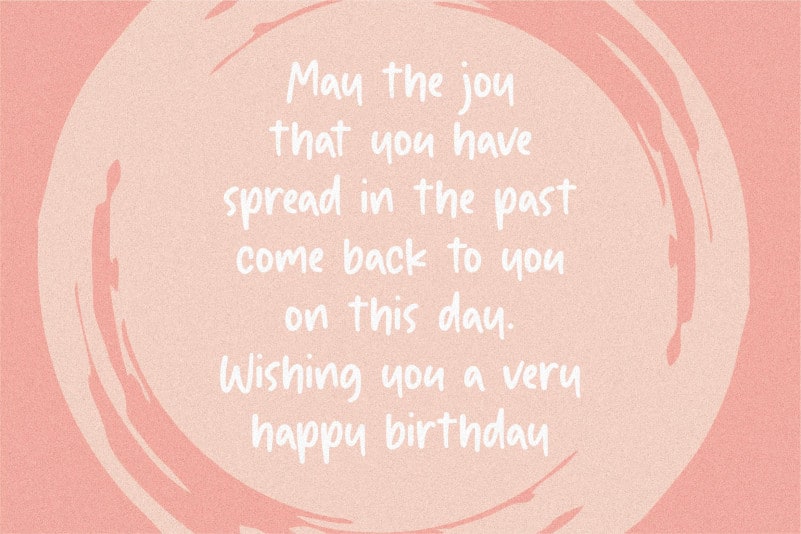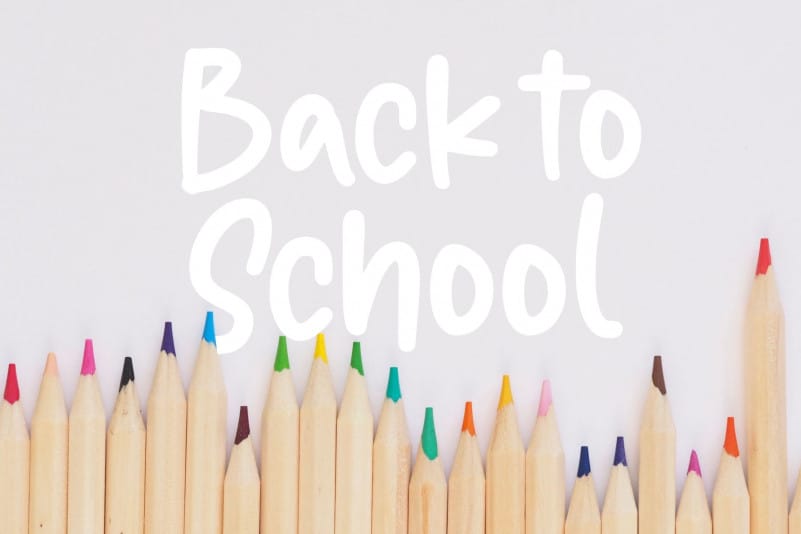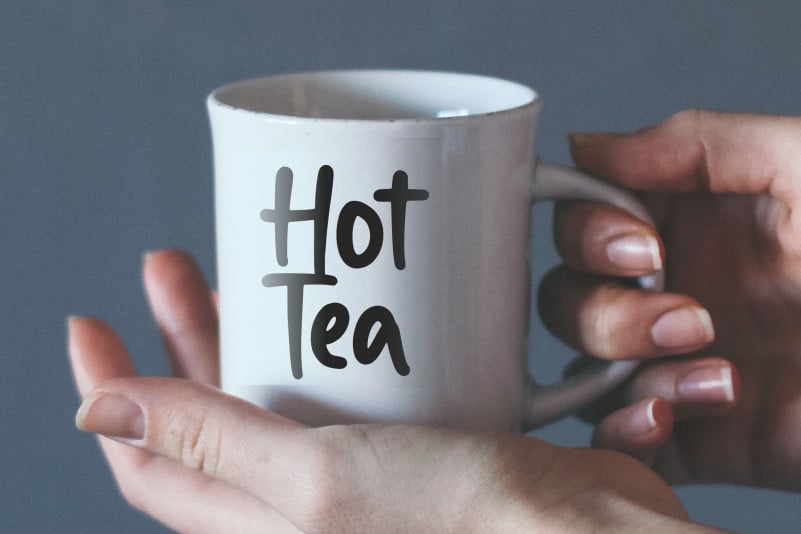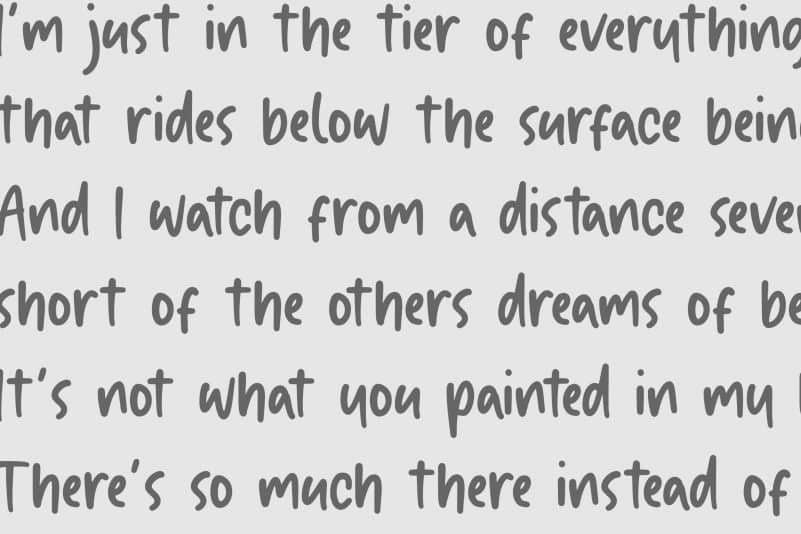
Twinkle Dream Handdrawn Font
Proudly Present, Twinkle Dream Handdrawn Font.
Twinkle Dream is a Friendly Handdrawn Font.
Twinkle Dream is perfect for product packaging, branding project, megazine, social media, wedding, or just used to express words above the background.